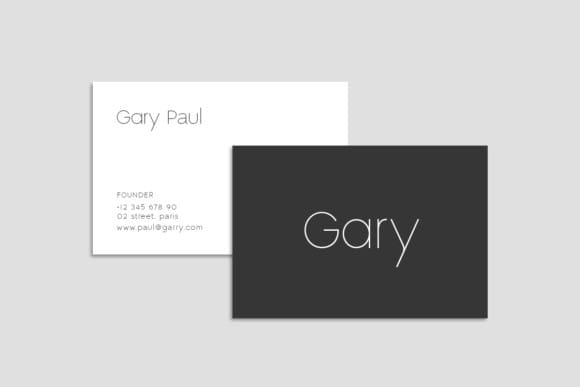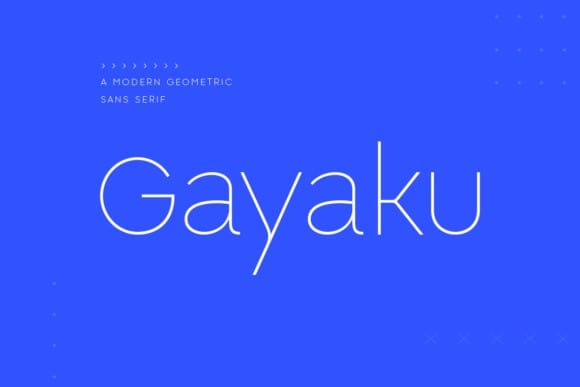
Gayaku Font
Gayaku Font is a refreshing and tidy sans-serif typeface that embodies simplicity and clarity. With clean lines and gentle curves, it emanates a sense of modernity and elegance. Ideal for various design projects, Nice Life brings a polished and contemporary touch to any text or layout.